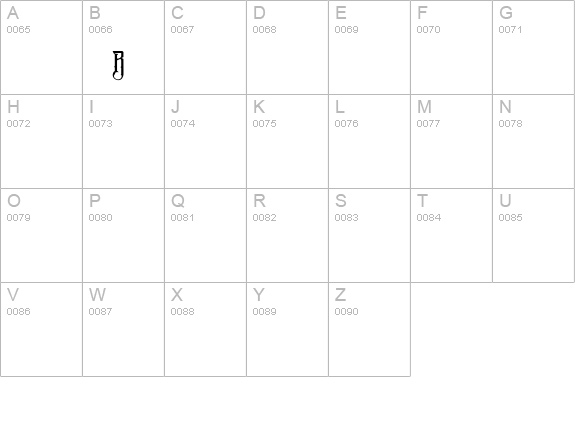
Brck Font Details
Introducing Brck font - a stunning and versatile typeface that effortlessly captures attention with its modern yet timeless appeal. Boasting clean lines and a subtly bold design, Brck font exudes confidence and sophistication, making it the perfect choice for a wide range of creative projects. What sets Brck font apart is not just its impeccable aesthetics, but also its accessibility. It is proudly available for free download at FontsMarket.com, allowing designers, artists, and enthusiasts alike to effortlessly add this remarkable font to their repertoire without breaking the bank. With Brck font, you have the freedom to unleash your creativity and elevate your designs to new heights. Whether you're working on a logo, a branding project, a website, or any other creative endeavor, Brck font's versatile nature ensures that it effortlessly adapts to your vision, enhancing the overall impact of your work. The carefully crafted letterforms of Brck font strike the perfect balance between legibility and uniqueness. Its clean, sharp edges give it a contemporary edge, while subtle curves add a touch of elegance and personality. This harmonious blend of elements ensures that Brck font stands out from the crowd, leaving a lasting impression on any audience. Brck font is a true gem in the world of typography, and its availability as a free download only adds to its allure. Whether you're a seasoned designer or just starting out, this font is a must-have in your toolkit. So why wait? Head over to FontsMarket.com and unlock the unlimited possibilities that Brck font brings to your creative projects.